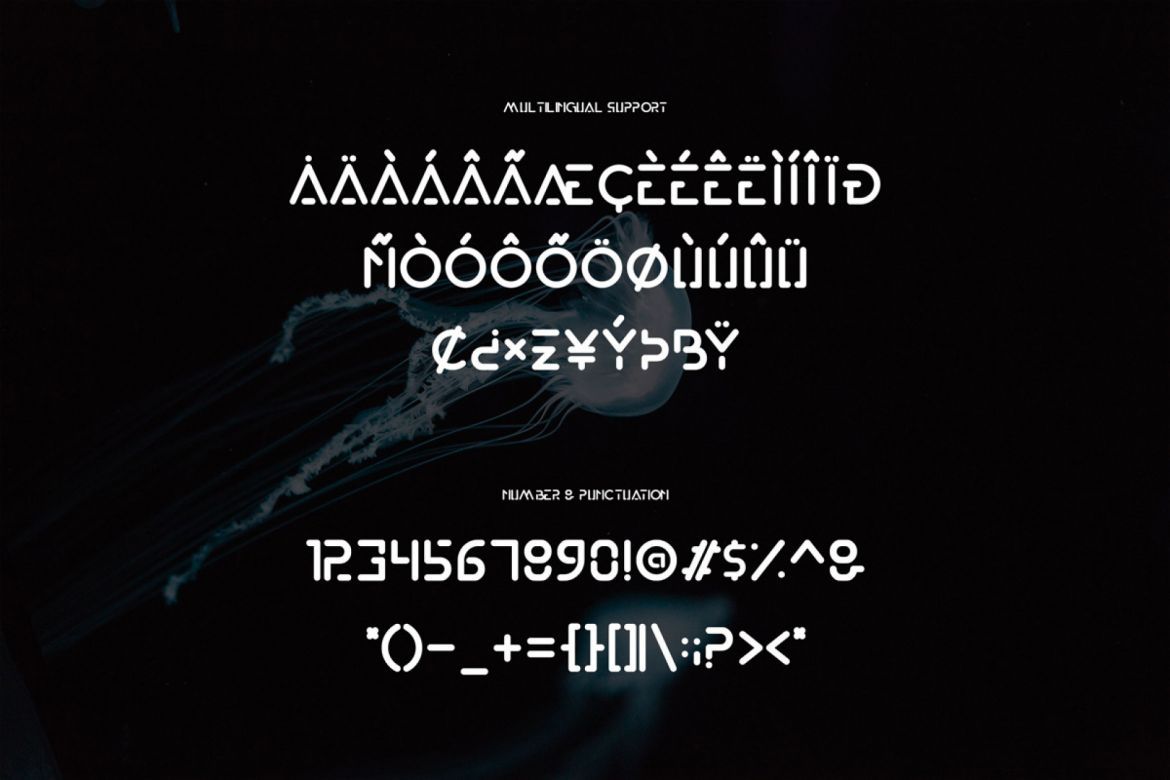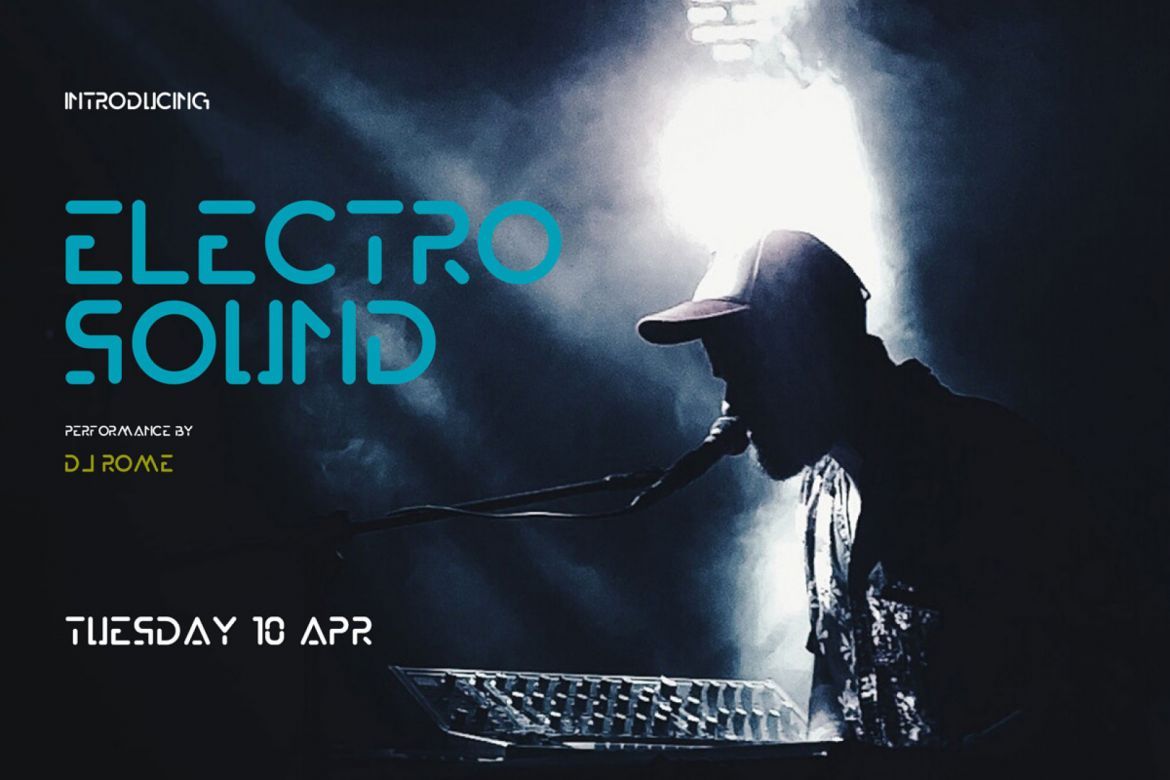
Exodar - Futuristic Font
Introducing – Exodar is a font inspired by the futuristic and sci-fi style. This elegant and futuristic font is stylish and versatile so you can use in a plethora of designs in both digital and print applications.